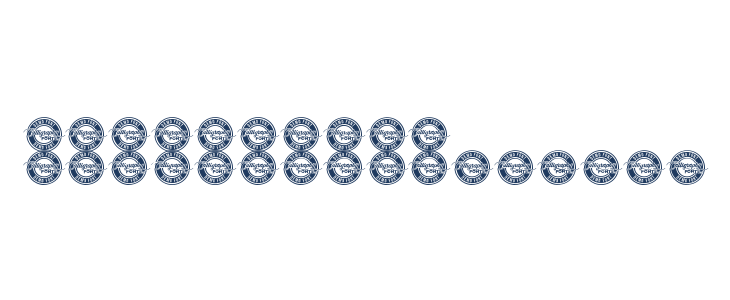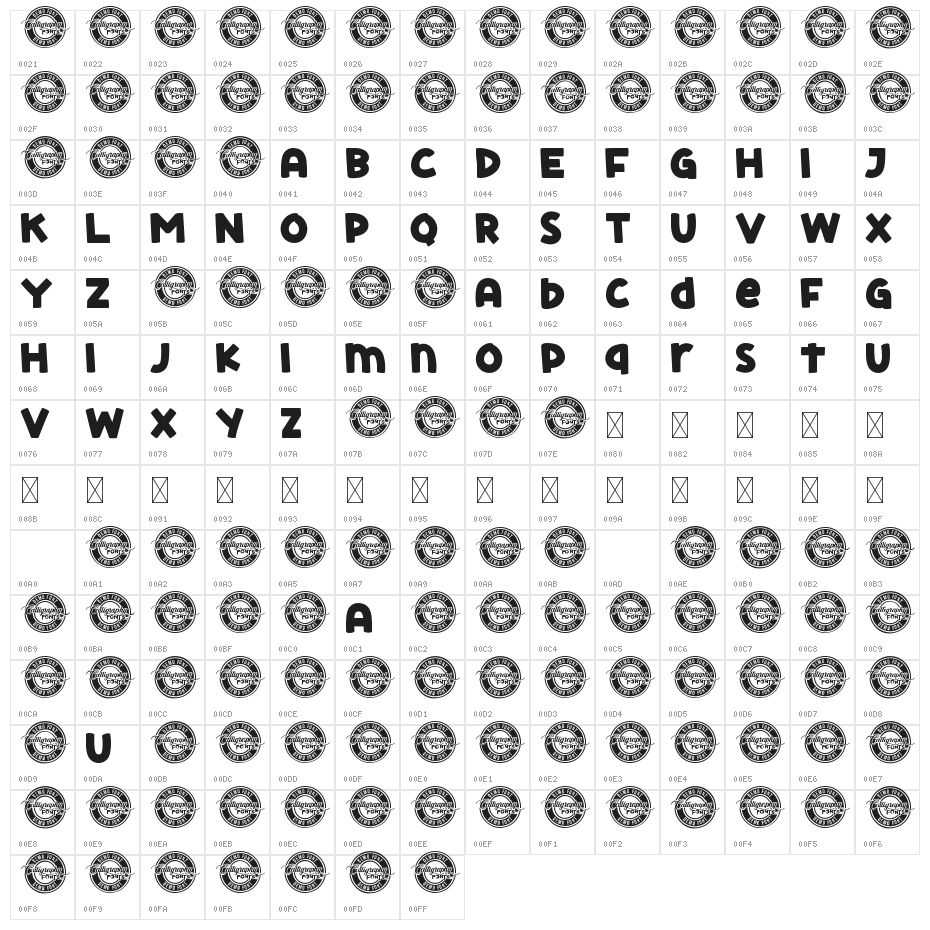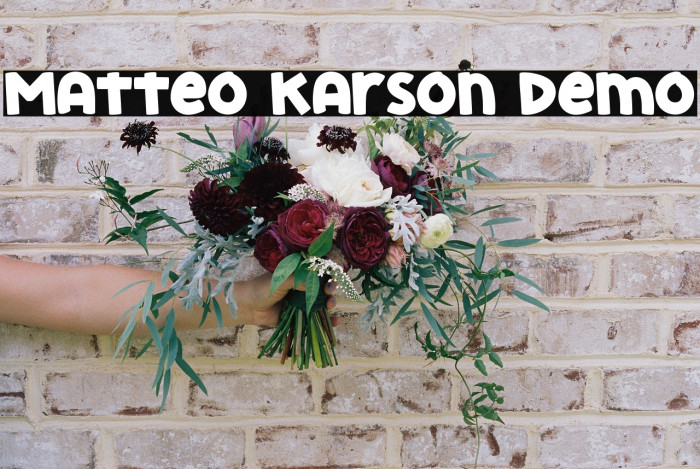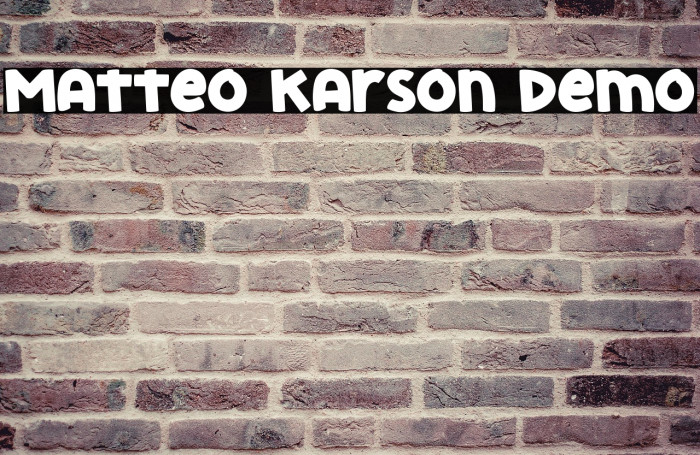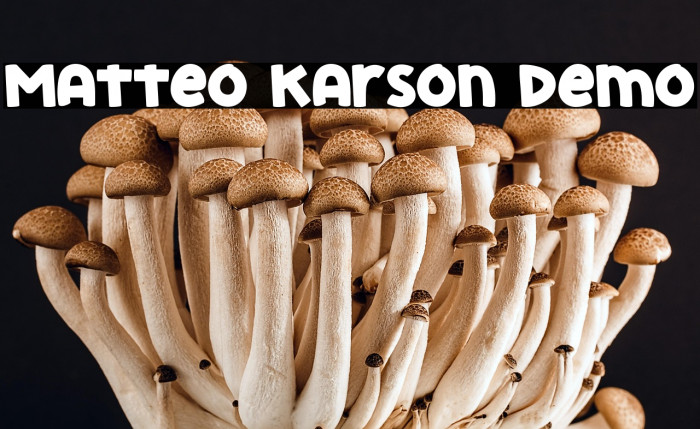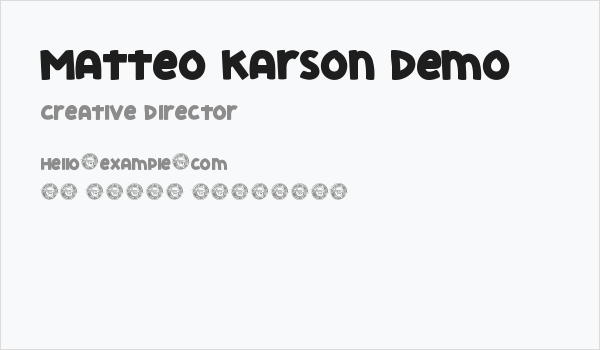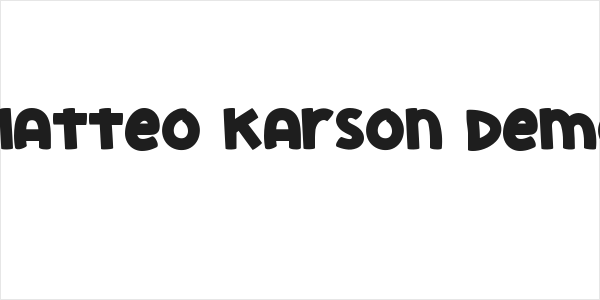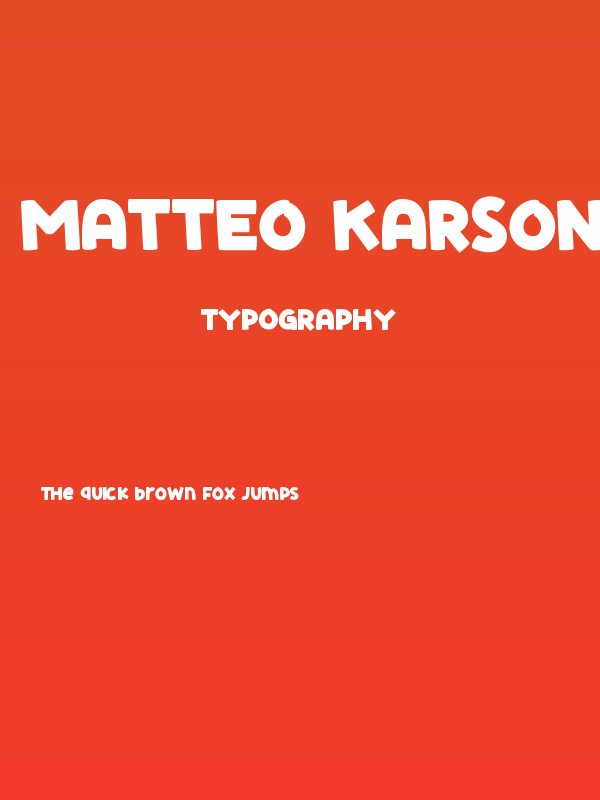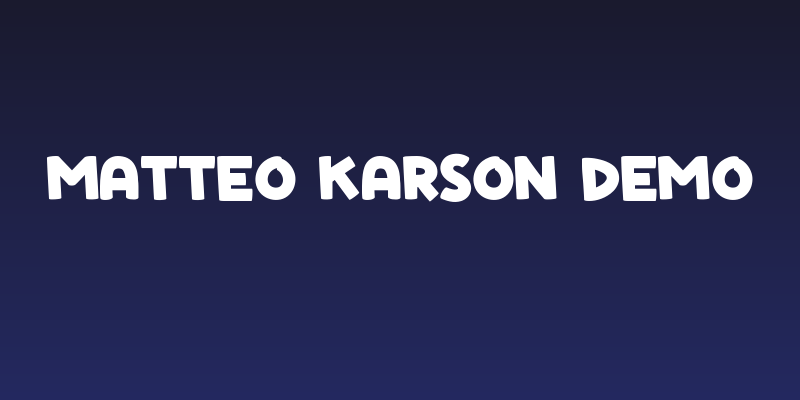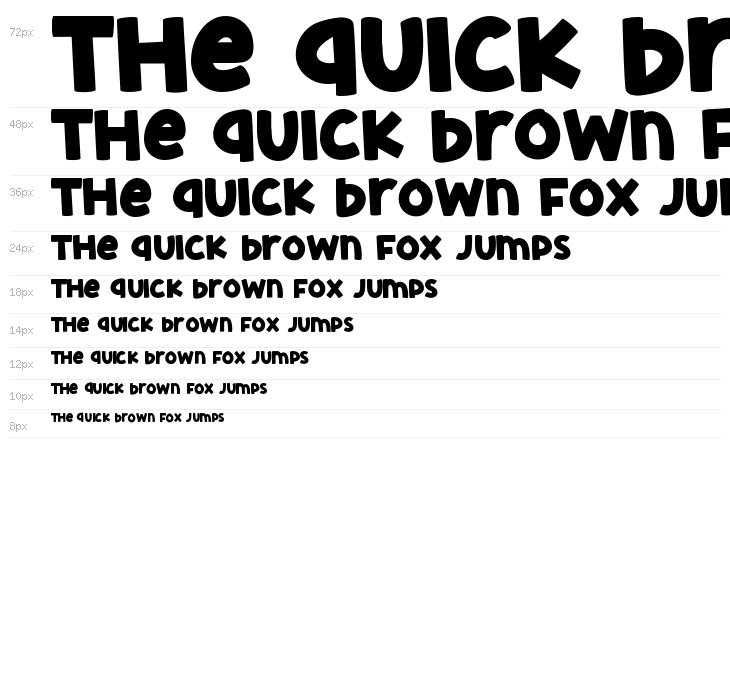
Matteo Karson Demo Font
Matteo Karson Demo Description
This font features a playful and bold style, characterized by its rounded and slightly irregular letterforms. The uppercase and lowercase letters maintain a consistent thickness, giving the font a cohesive and friendly appearance. The characters are designed with a slight tilt, adding a dynamic and informal touch. The overall look is reminiscent of hand-drawn or cartoon-like typography, making it suitable for projects that require a fun and approachable aesthetic. The font's unique style is further emphasized by its consistent stroke width and lack of sharp edges, contributing to its inviting and casual vibe.
| Overall Style | Playful, Casual, Hand-drawn |
| Proposed Projects | Ideal for children's books, playful branding, casual invitations, and creative posters. |